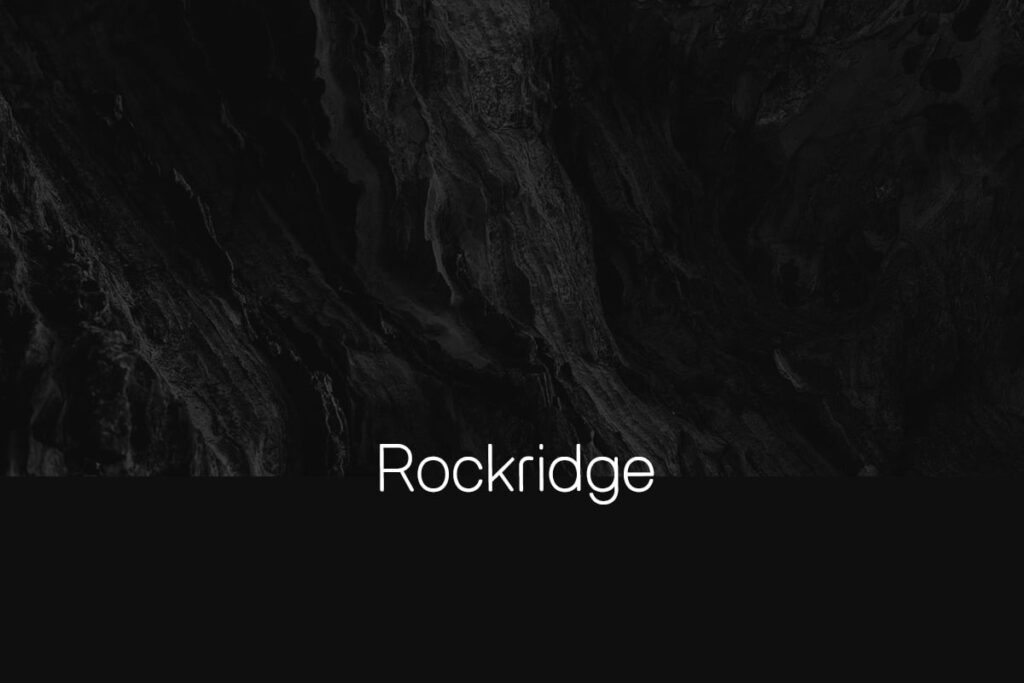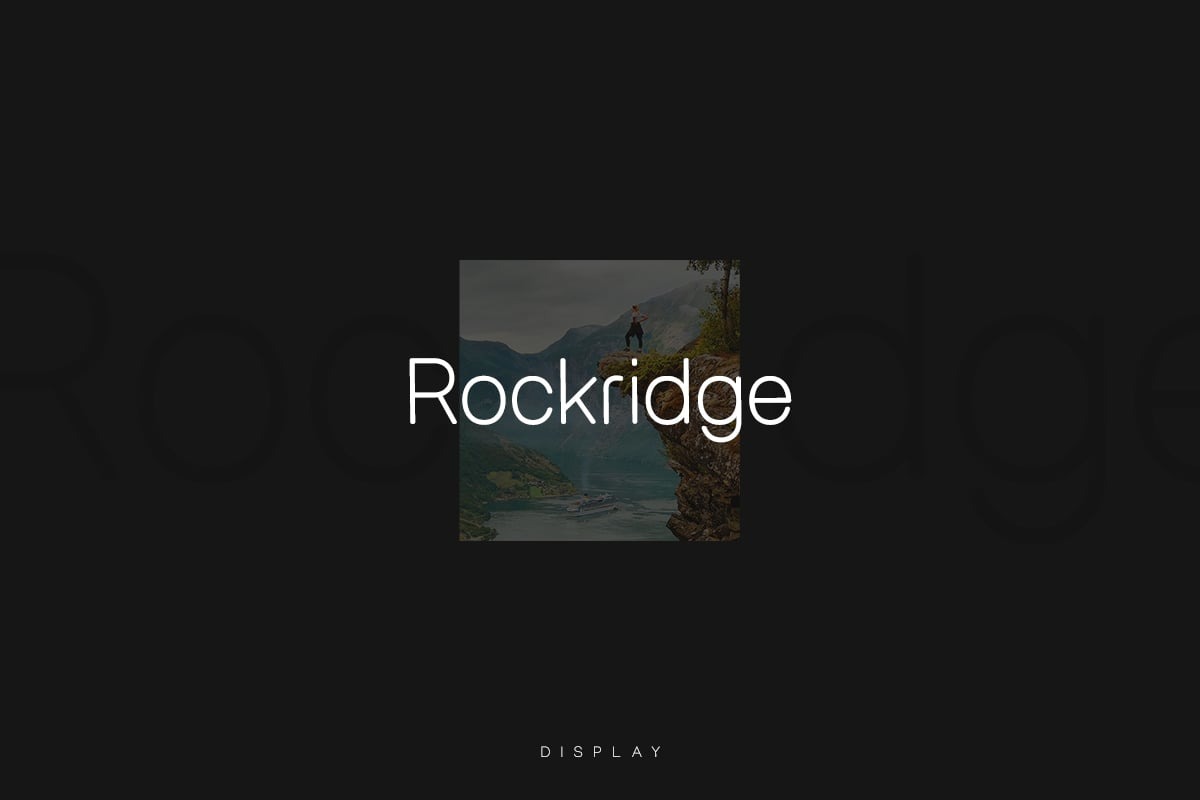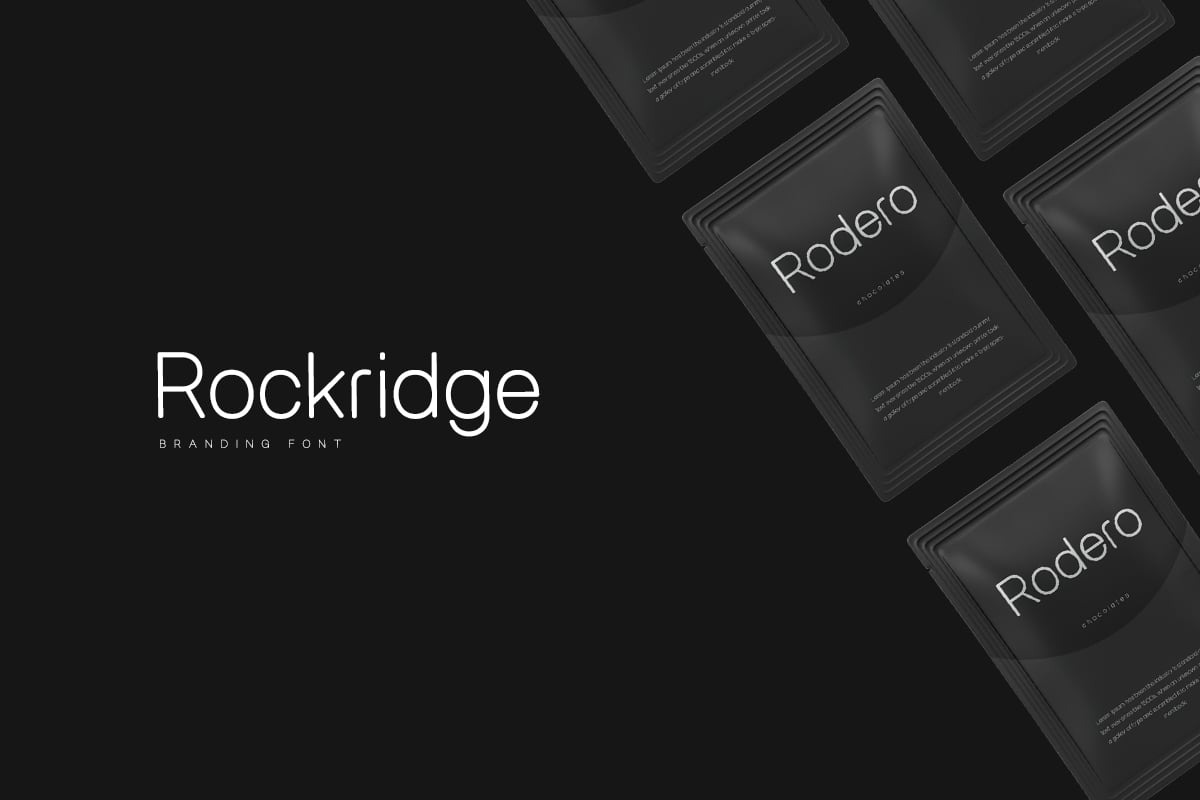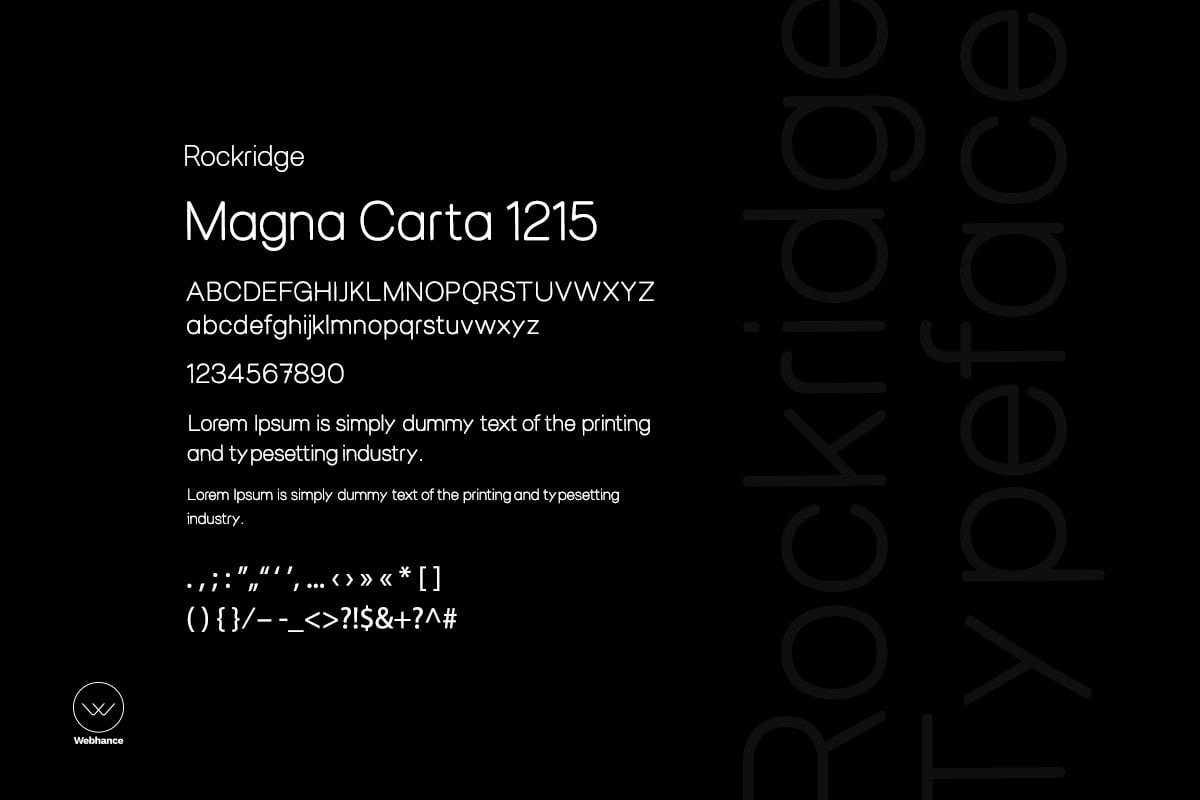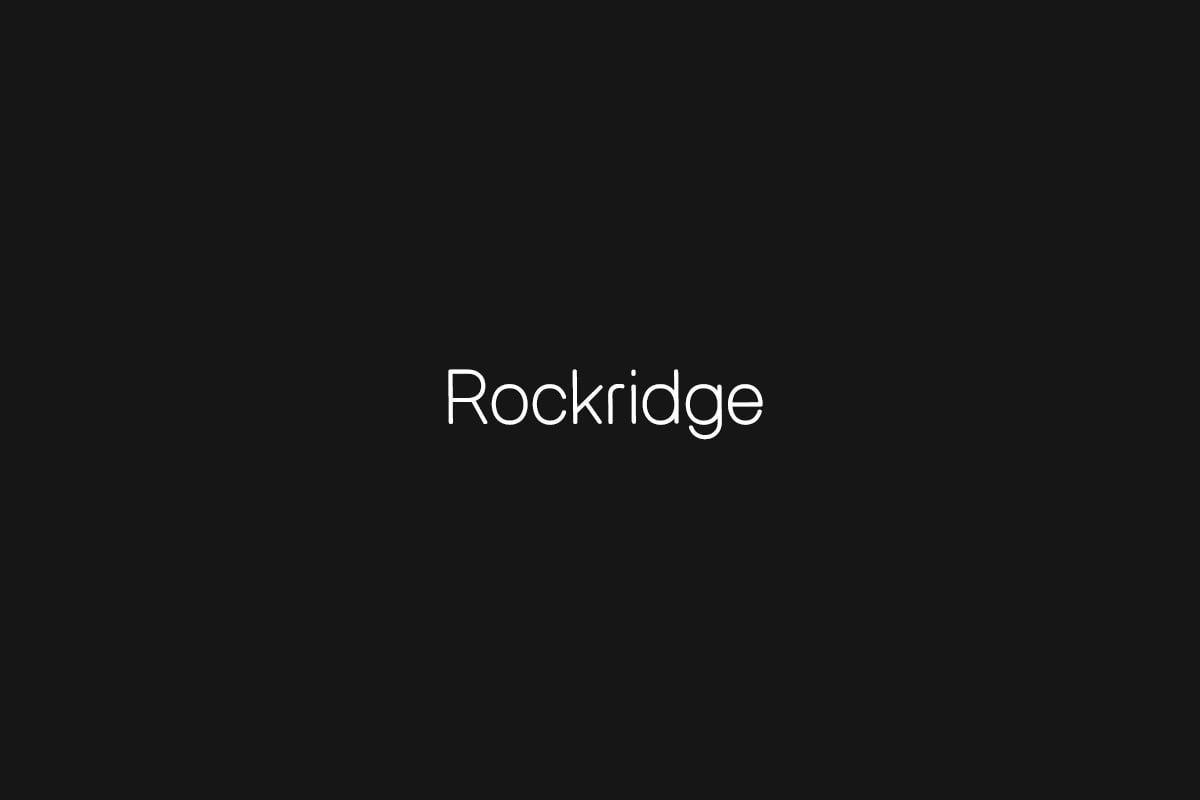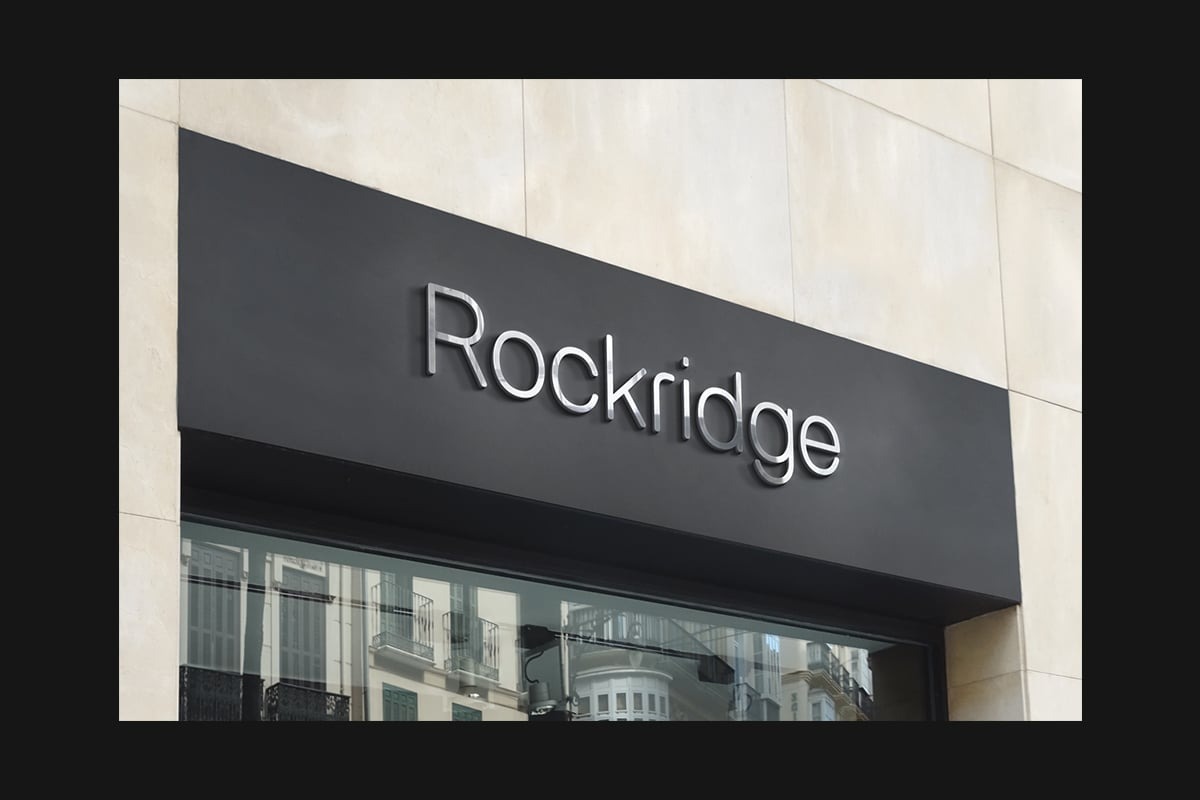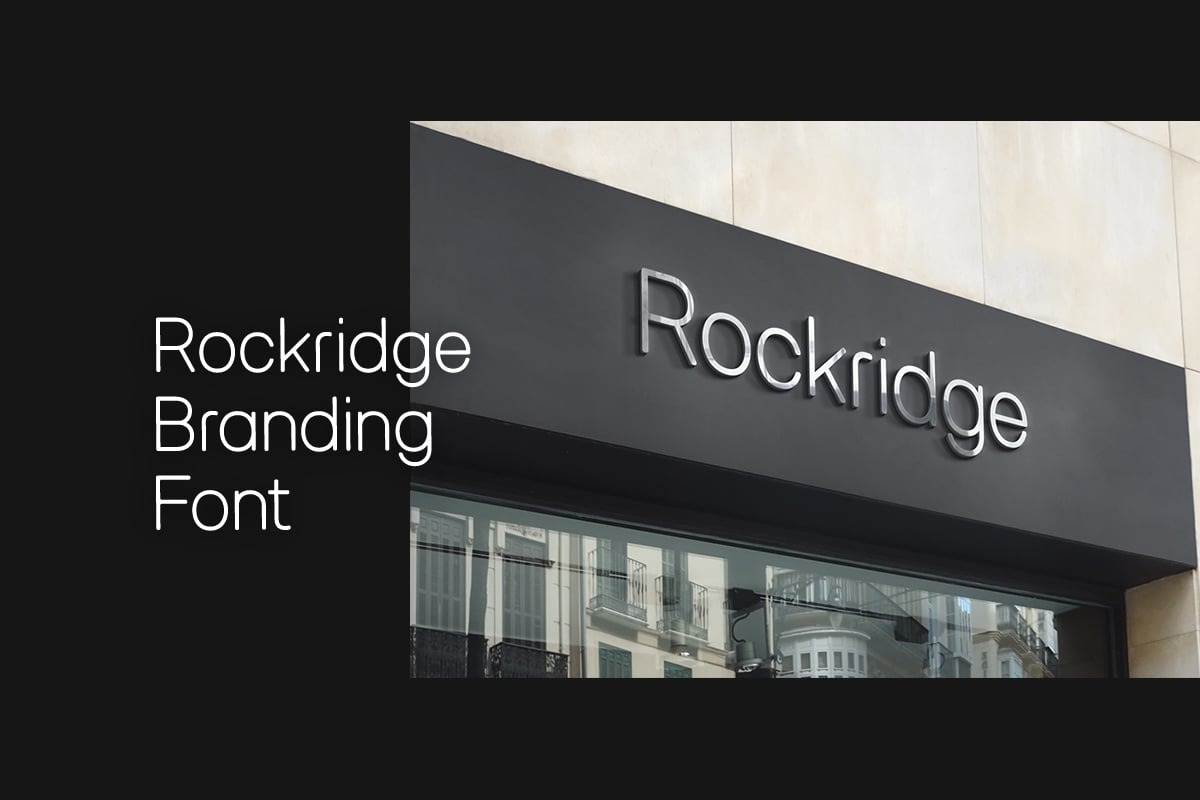
Rockridge Sans is a modern Sans Serif typeface suitable for film posters, headlines, package designs, branding, logo designs, and big banners. Clean & Decorative Typography Web Designs. The pack includes OTF, TTF, and Web Fonts